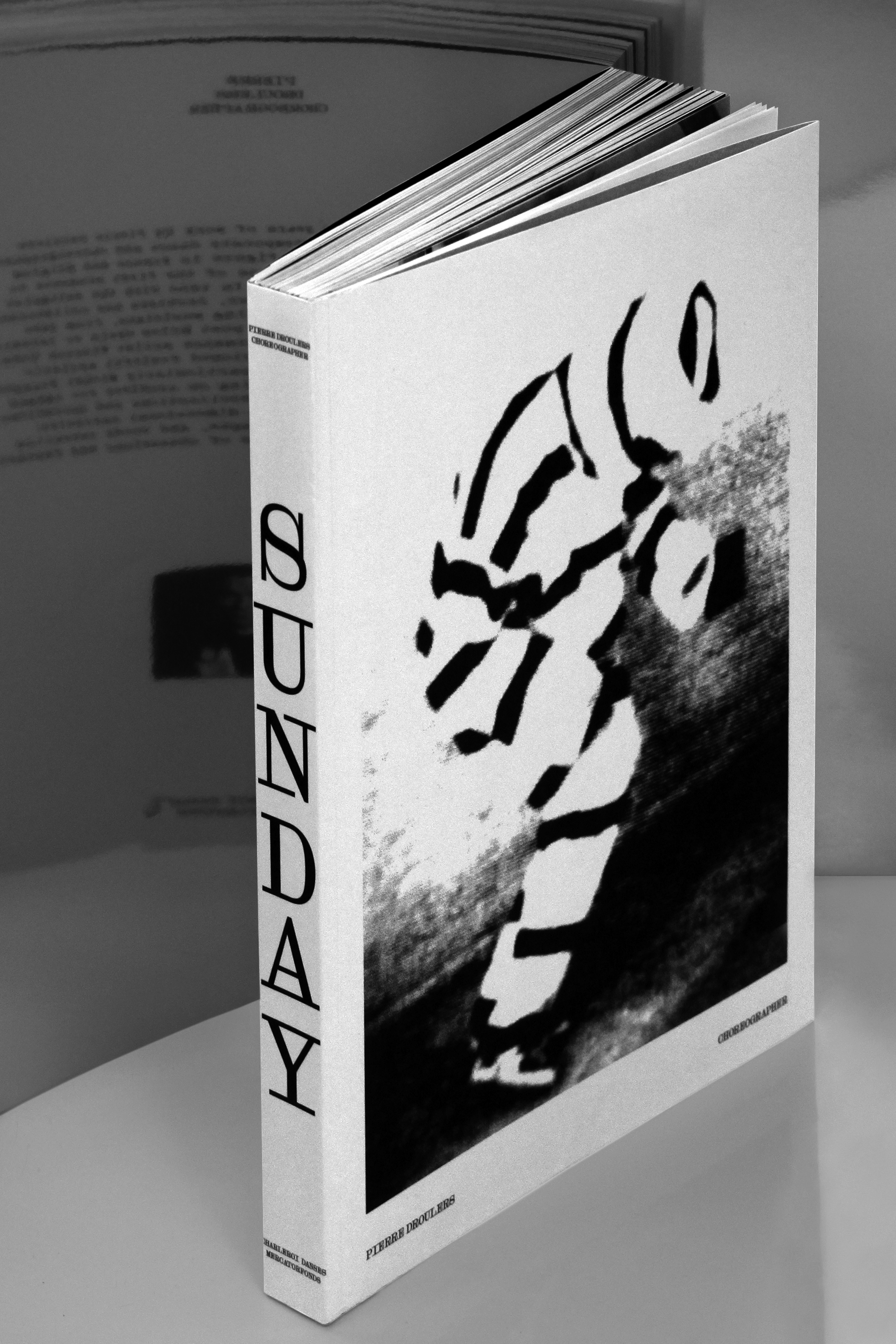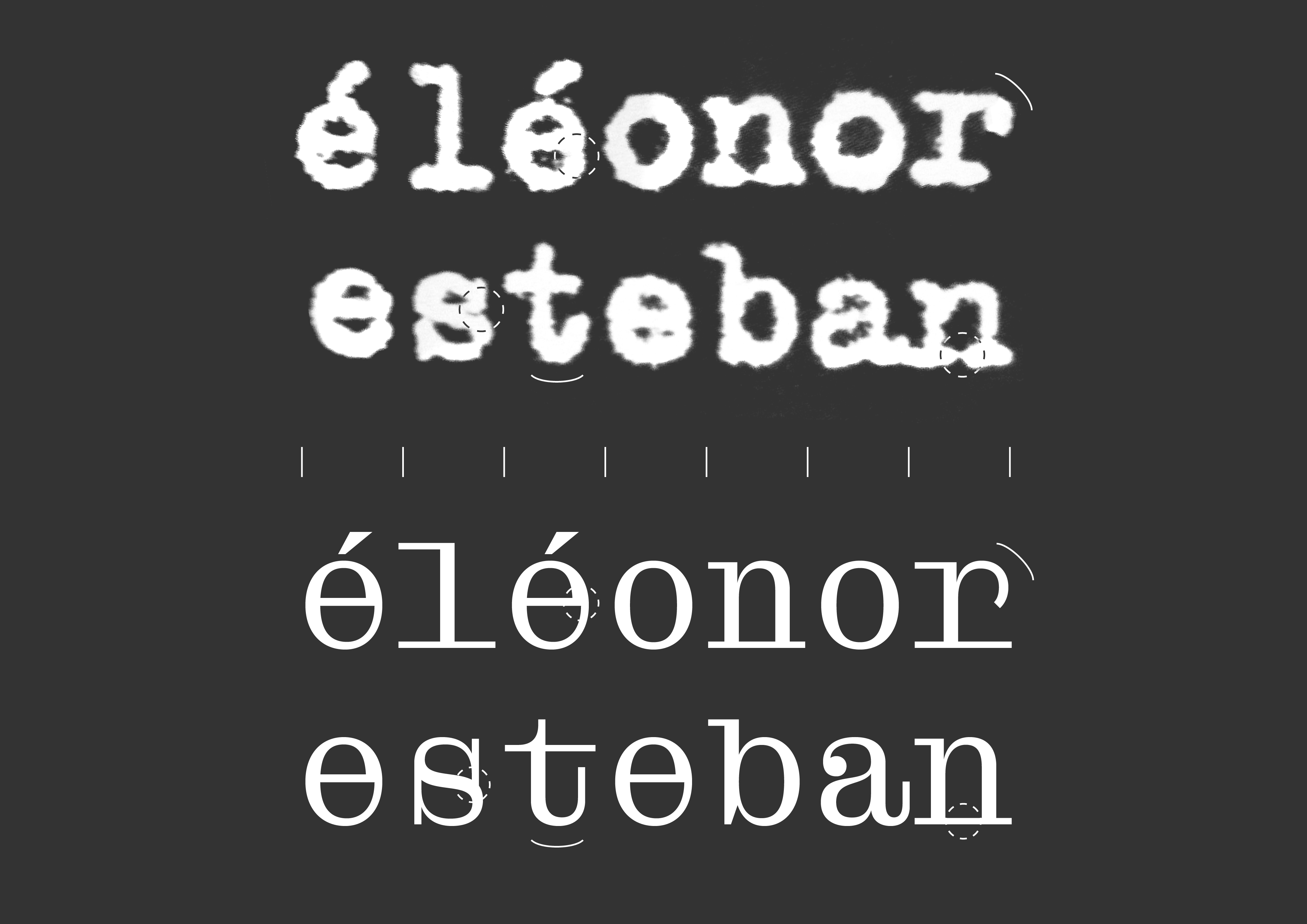
We drew a small custom typeface family for the book Pierre Droulers choreographer: Sunday, in collaboration with Ousseynou Salla. This typeface was designed for a book spanning the life and work of the dancer and choreographer Pierre Droulers.
2 styles
The typeface draws upon printed matter found in Droulers’ personal archive and in particular some typewritten notes. Exploring both the specific rythm and shapes of typewriter alphabets, the design is inspired by the distortions and accidents generated by this technology: letters obstructed by ink, closing counterforms, and so on.